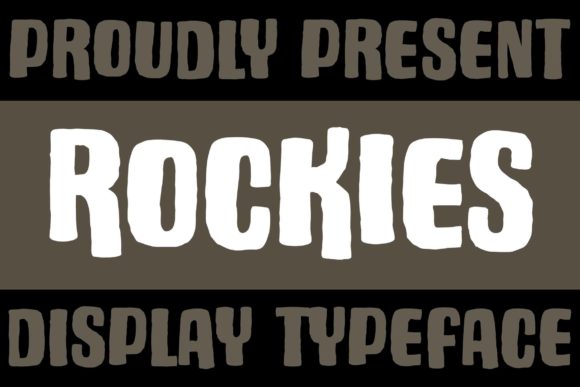
Embark on a typographic expedition with Rockies Font, the ultimate display font that transforms your creative visions into masterpieces. This rough and rugged font, meticulously crafted by Subectype, is a true gem for designers seeking to make a bold statement.
Unleash your imagination and elevate your designs with Rockies Font, the font crafted to captivate and allure. Its rugged charm and distinct character add a touch of authenticity and grit to your projects, making them stand out from the crowd. Whether you're a seasoned designer or just starting your creative journey, Rockies Font is your gateway to creating designs that resonate with your audience.
Dive into a world of creative possibilities with Rockies Font. Its versatile nature makes it the perfect choice for a wide range of projects, from eye-catching logos and branding to captivating social media graphics and stunning website designs. With Rockies Font, your creativity knows no bounds.
Picture your designs adorned with the rugged beauty of Rockies Font. Its distinct letterforms and rough edges create a visual impact that demands attention. Whether you're crafting a vintage-inspired poster or a modern flyer, Rockies Font adds a touch of timeless elegance that elevates your work to new heights.
Experience the power of Rockies Font and unlock your creative potential. As a display font, it commands attention and leaves a lasting impression. Its bold and striking presence makes it the perfect choice for headlines, titles, and any text that demands to be seen.
Take your designs to the next level with Rockies Font and embark on a typographic adventure where creativity reigns supreme. Its rugged charm and versatility make it the perfect companion for designers seeking to create impactful and memorable designs. Discover the boundless possibilities of Rockies Font and unleash your creativity today!